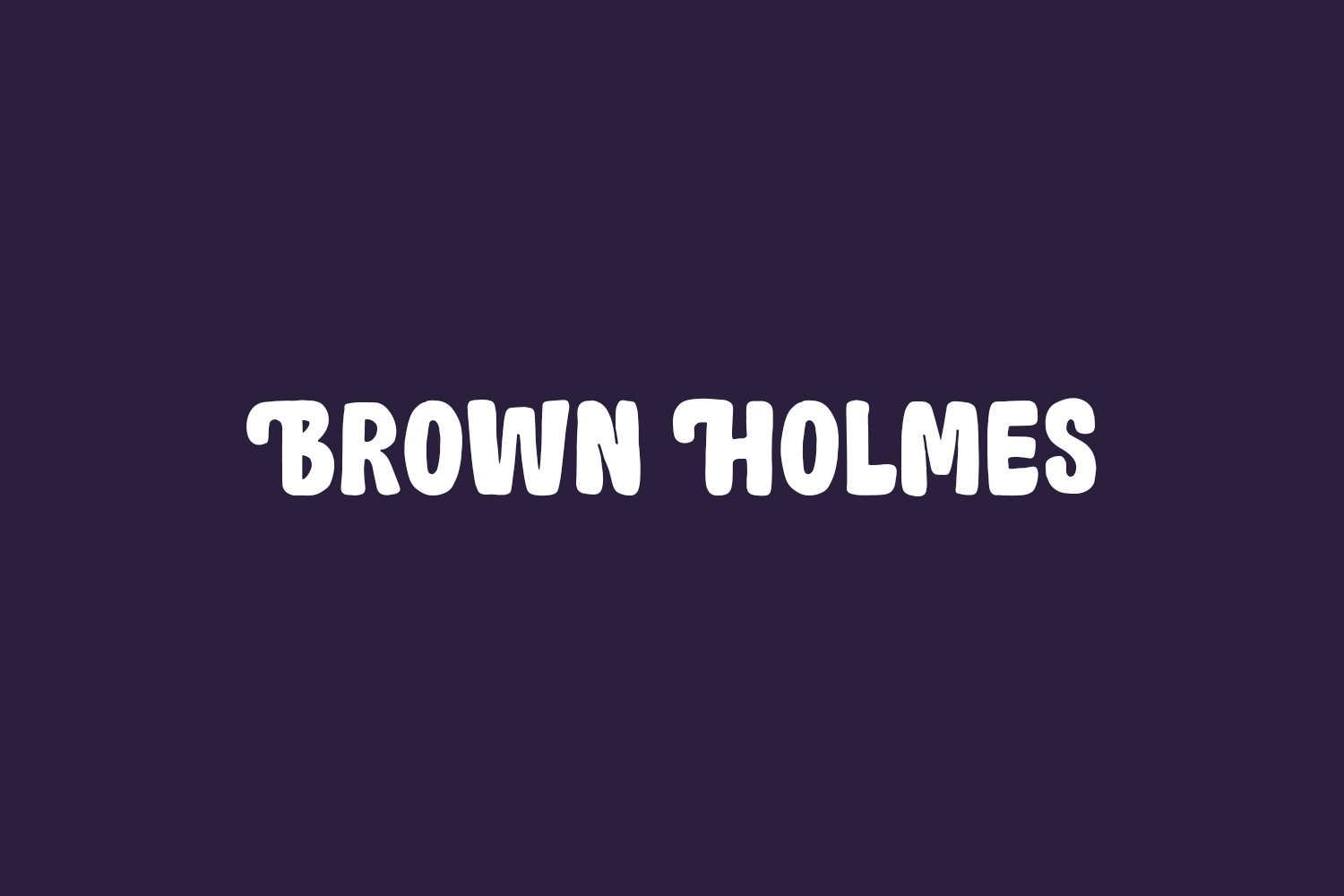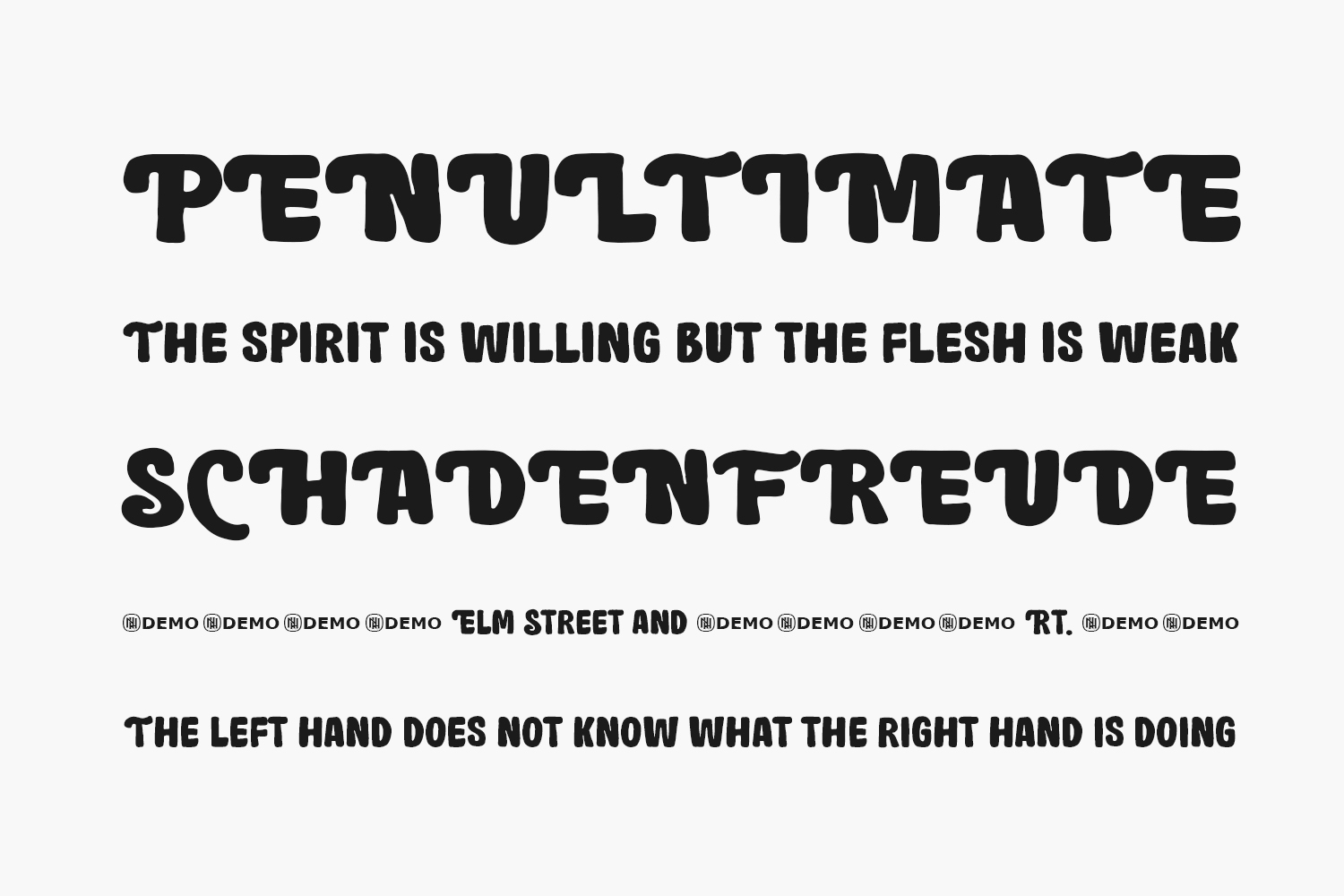
Brown Holmes Free Font is a cute and fun display font. It embodies playfulness and authenticity and is the perfect choice for any children’s activity or school project. Add this chunky lettered font to your designs and notice how it makes them come alive. Brown Holmes Free Font was designed by Letterhend Studio is a demo and free for personal use only. Please purchase the full version for commercial use.